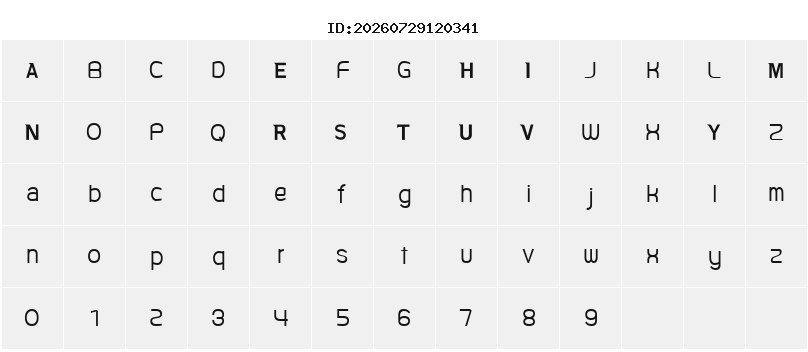
Kunlasatri Preview
• Font Name: Kunlasatri
• Manufacturer: Chatnarong Jingsuphatada
About Kunlasatri.ttf
Kunlasatri.ttf is a modern, elegant sans-serif font designed for ultimate readability and visual harmony. Perfect for branding, headlines, web design, and print materials.